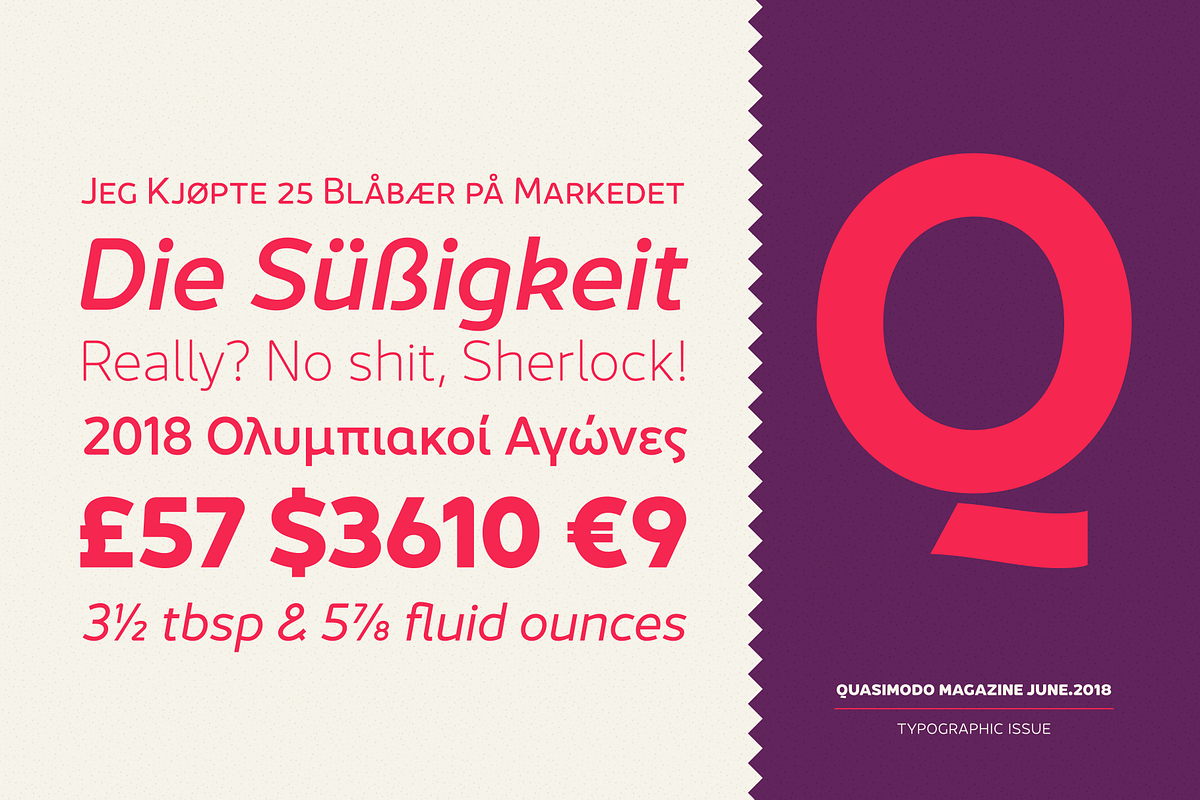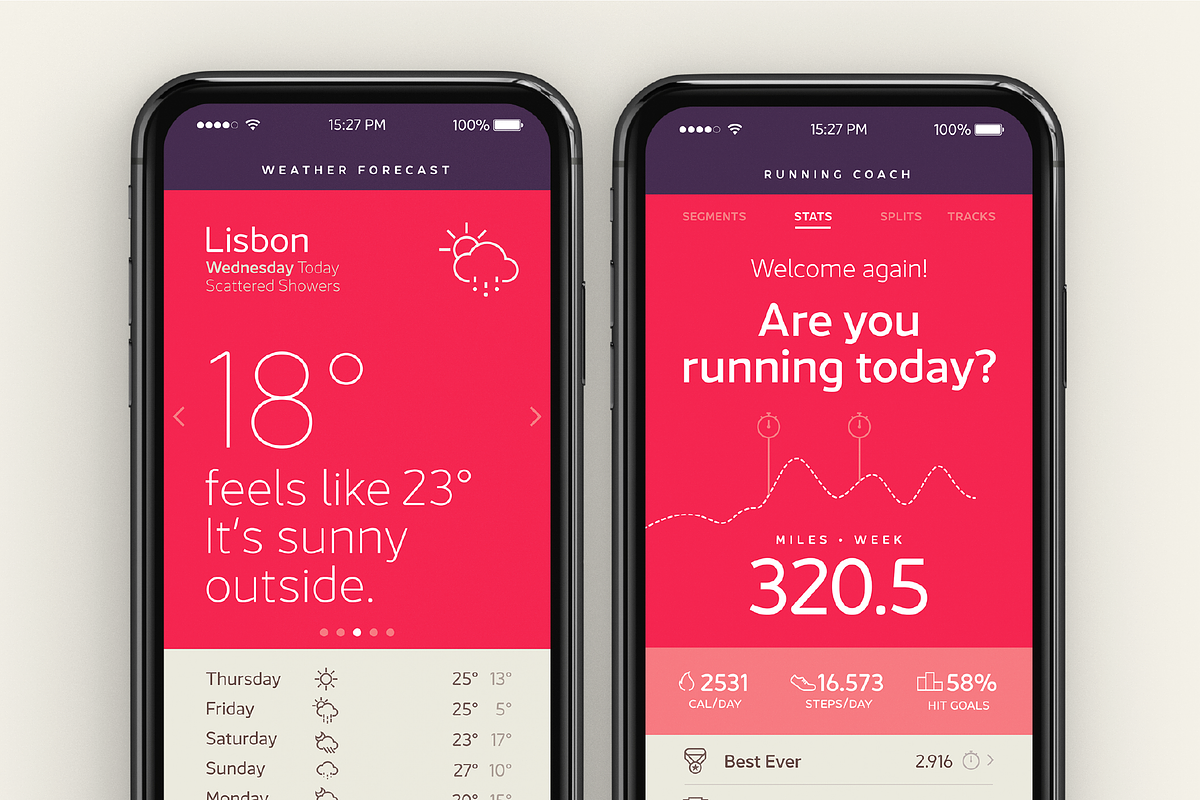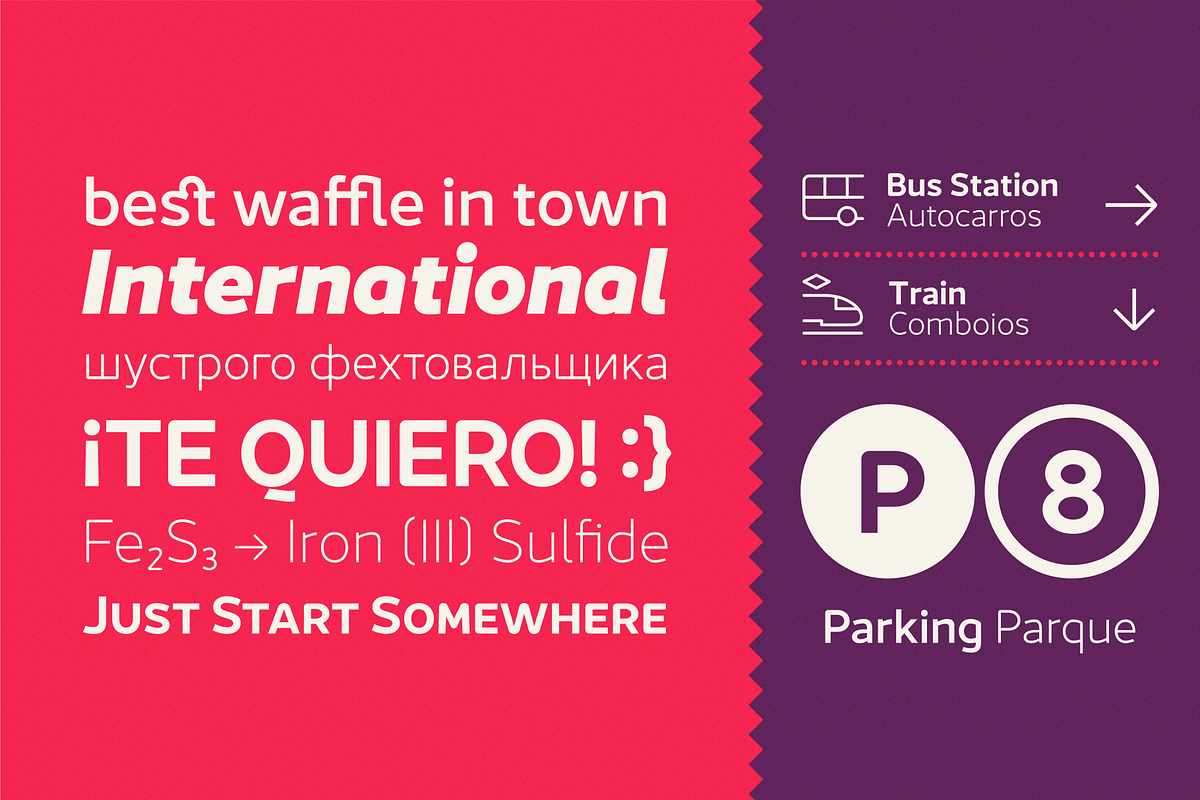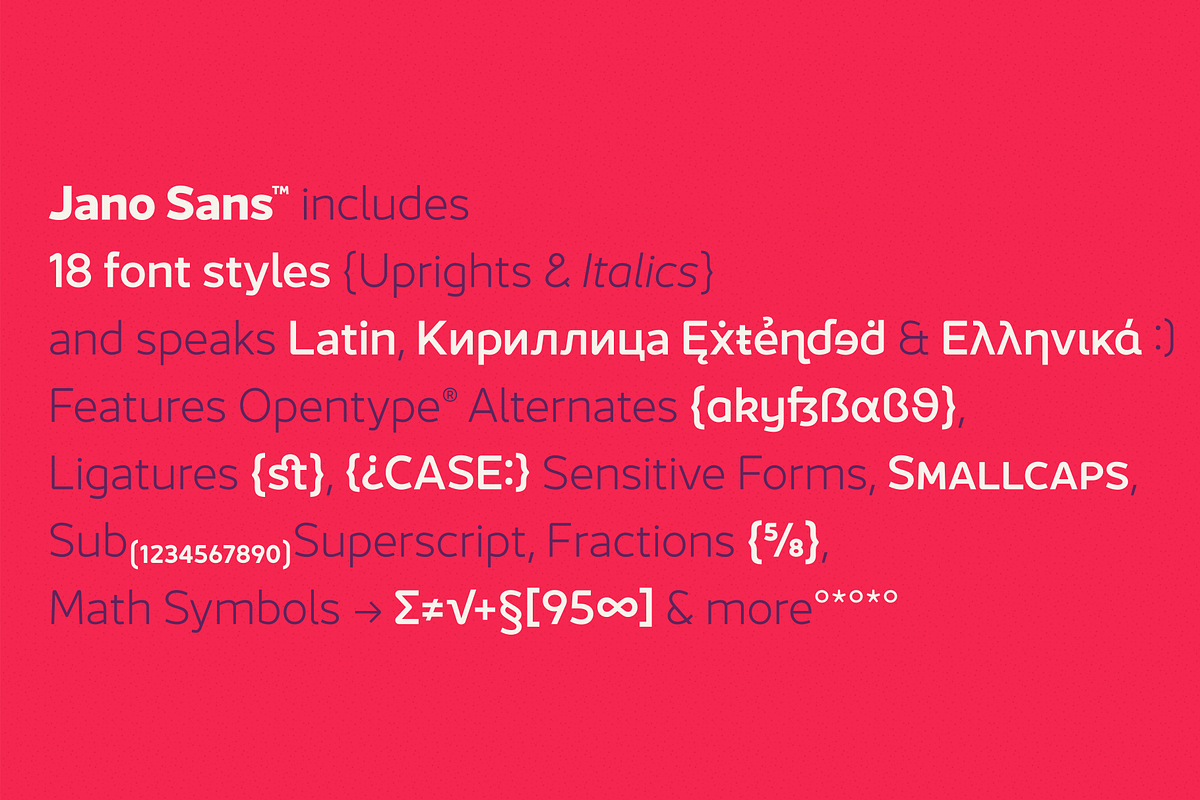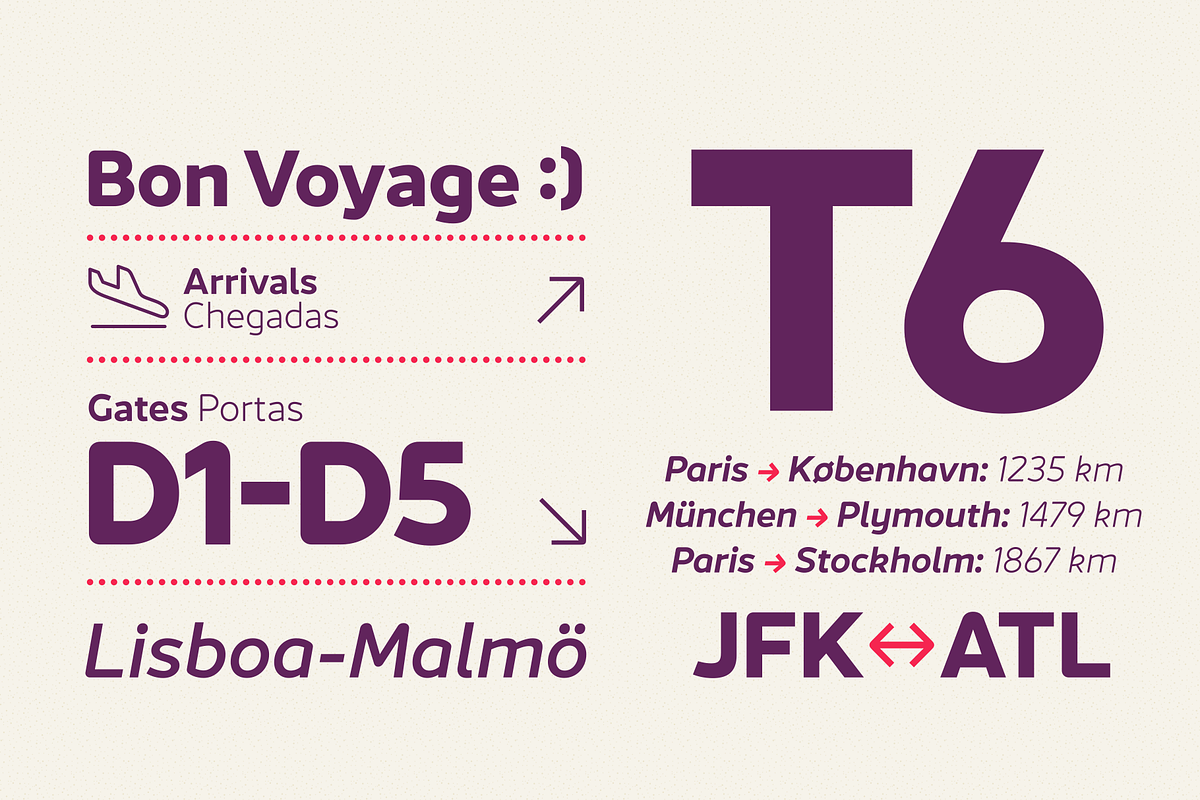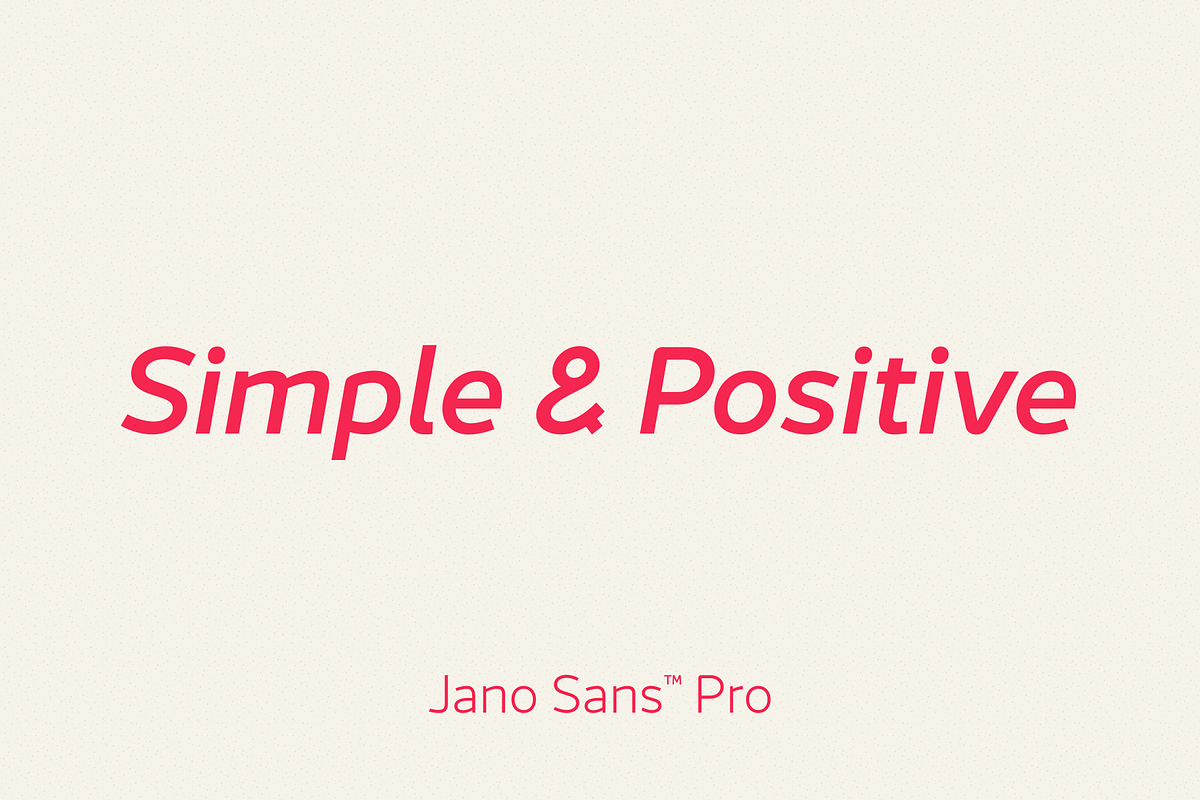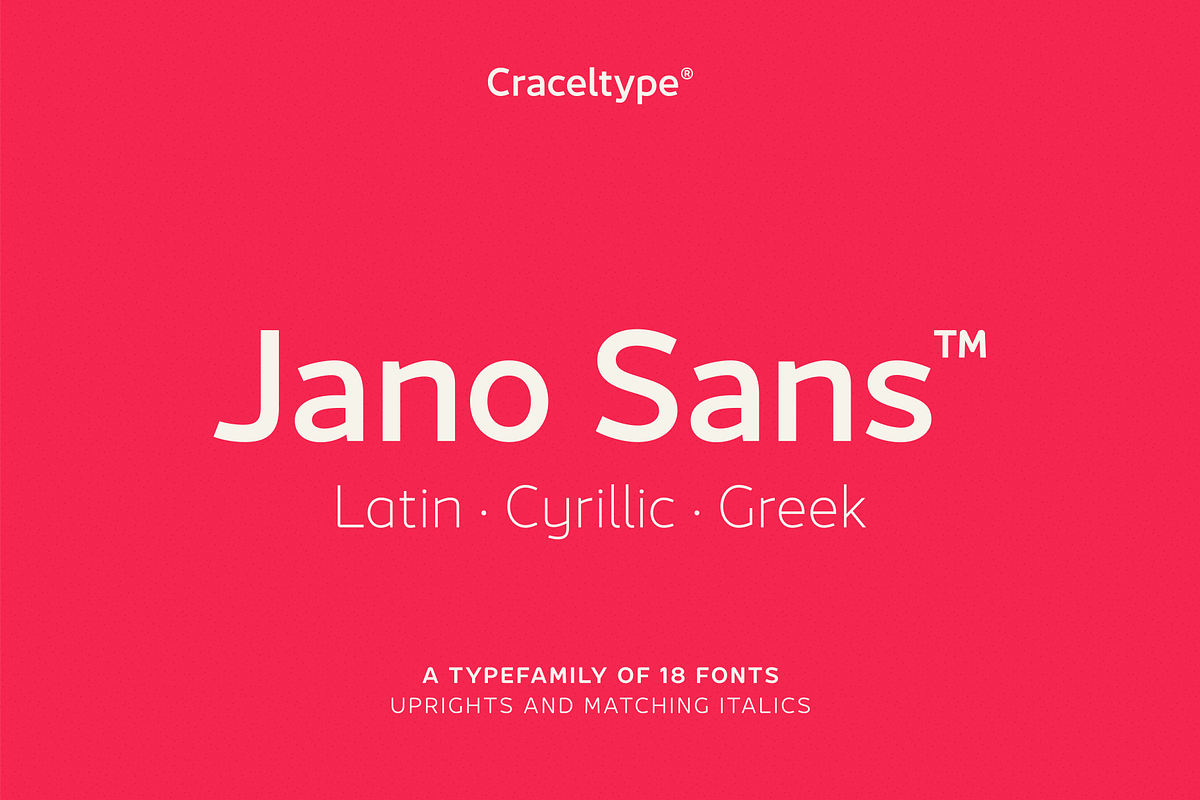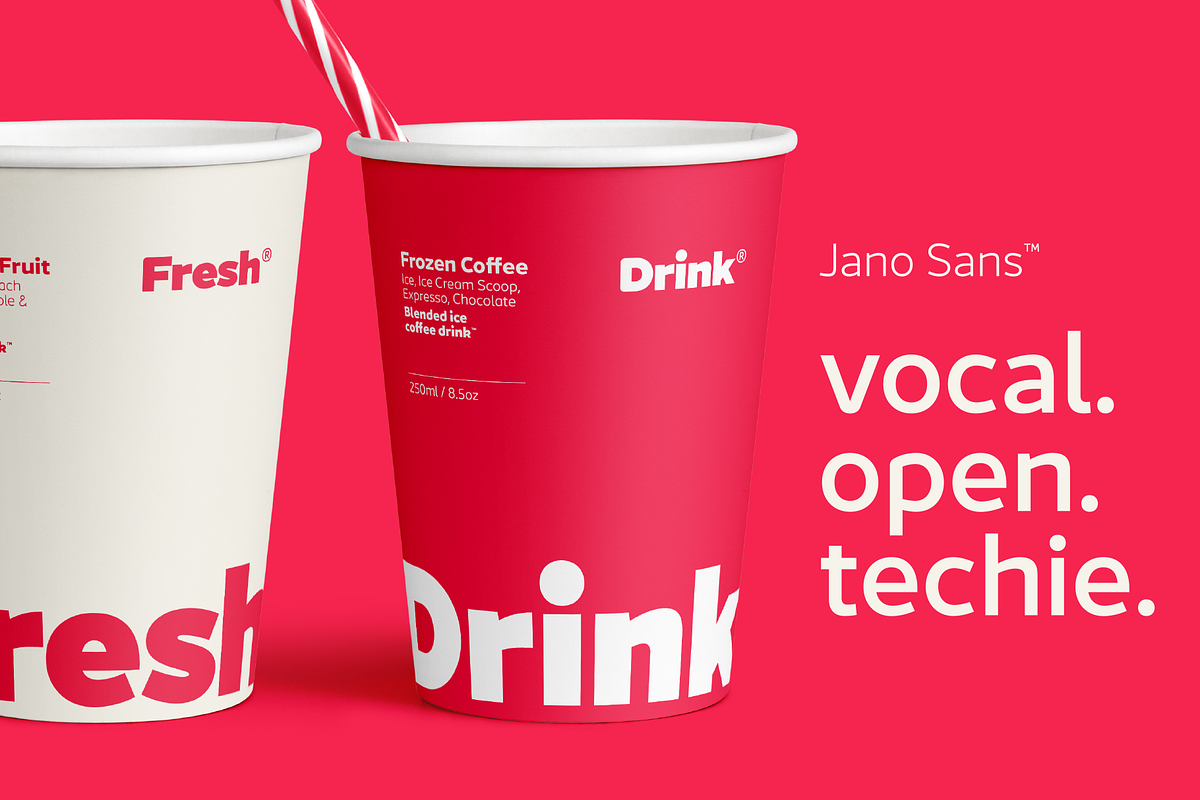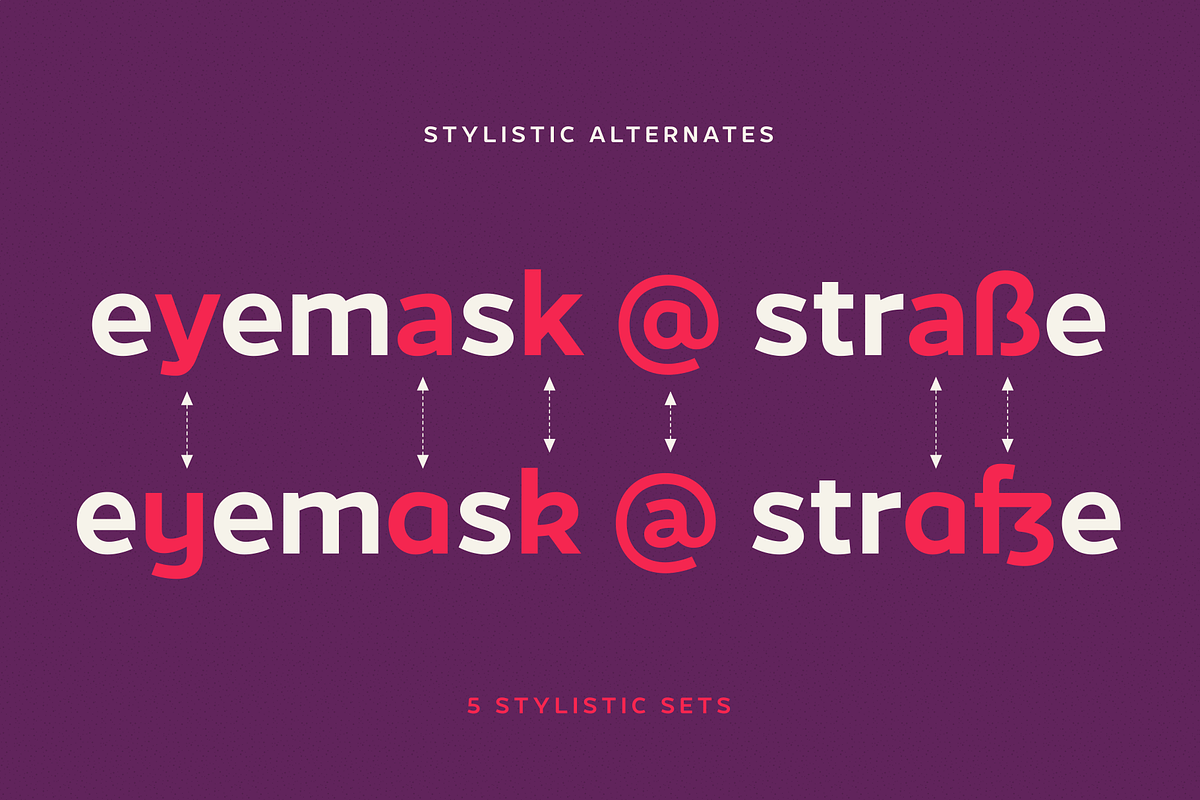
Jano Sans
Jano Sans is the firstborn of the Jano family. Initially designed to seamlessly perform on web apps and digital media, it eventually became a favorite for brand communication, conveying a collaborative and tech-savvy profile with a wealth of great OpenType features such as alternative shapes, small caps, ligatures, localized forms, case-sensitive forms, and more.
With 18 styles and over 1800 glyphs per style, this elegant neo-humanist sans-serif with a geometric feel was built to be a versatile workhorse type system. Whether for branding, printed brochures, web and app applications, or broadcast, Jano Sans has your back, ensuring legibility and relatability across more than 290 languages.